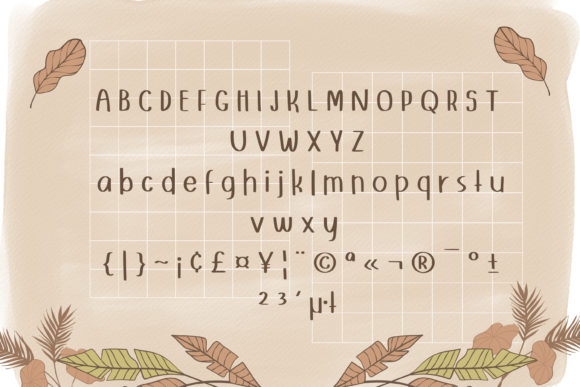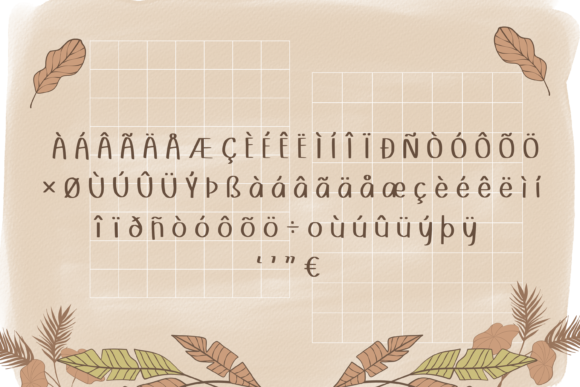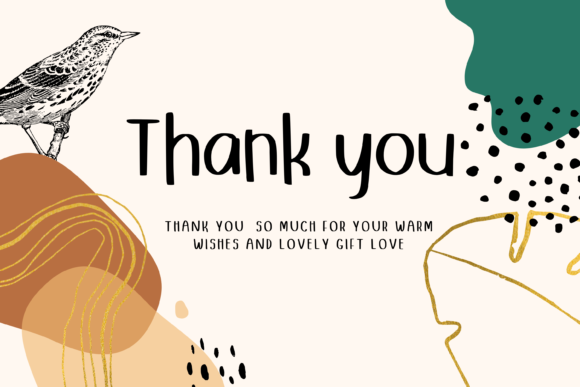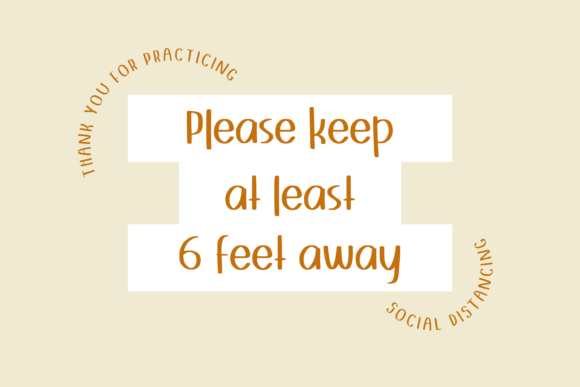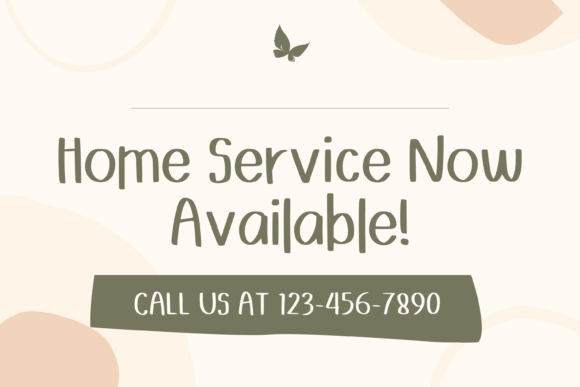
The Chalkboard Charm: Unlocking the Potential of Carloman Font
Remember the joy of scribbling notes on a chalkboard during class, the feel of the chalk dust on your fingers, and the satisfaction of creating something from scratch? As designers, we’re often looking for ways to capture that same sense of nostalgia and authenticity in our work. That’s where the Carloman Font comes in – a cute and simple lettered handwritten font that’s perfect for adding a personal touch to your designs.
Whether you’re creating chalkboard quotes, teaching materials, or simply looking to add some charm to your graphics, Carloman Font is a valuable tool in your design arsenal. Its authentic look will transport your audience back to a simpler time, making it a must-have for anyone looking to create a unique and engaging visual experience.
Carloman Font Key Features
- Font Family: Carloman Font is a sans-serif font family, ideal for digital and print applications.
- Size: The font family includes multiple weights, ranging from Thin (100) to Extra Bold (800), ensuring versatility in design.
- Resolution: Designed for high-resolution displays, suitable for use on screens with resolutions up to 300 DPI.
- Unique Characteristics: Carloman Font features a clean, modern design with a subtle rounded edge, making it perfect for corporate and tech-related projects.
- Character Set: Supports a wide range of languages, including Latin, Cyrillic, and Greek scripts, making it a great choice for international projects.
Carloman Font Review
Overall, I’m quite impressed with the Carloman Font. It’s a unique and elegant design that stands out from more generic fonts. ✨ Here are some of its strengths:
- Unique flair: The Carloman Font has a distinct flair that sets it apart from other fonts. It’s perfect for designers looking to add a touch of sophistication to their projects.
- Legibility: Despite its ornate design, the font remains highly legible, making it suitable for body text and headings alike.
- Cultural relevance: The font’s inspiration from ancient cultures adds a layer of depth and cultural significance, making it an excellent choice for projects that require a sense of history and tradition.
- Limited flexibility: While the font is beautiful, it may not be the best choice for projects that require a wide range of font sizes or styles.
- Dependence on context: The font’s unique design may not be as effective in certain contexts, such as on low-resolution screens or in situations where legibility is paramount.
Overall, I’d give the Carloman Font 4 out of 5 stars. It’s a stunning design that’s perfect for projects that require a touch of elegance and sophistication. With a little creativity and careful planning, the font’s limitations can be overcome, making it an excellent choice for designers looking to push the boundaries of typography.
Getting the Most Out of Carloman Font
For optimal results, use Carloman Font in conjunction with bold or italic text styles to add emphasis and create visual hierarchy.
Experiment with different font sizes and line spacing to achieve a balanced and harmonious design.
Alternatives to Carloman Font
Montserrat is a geometric sans-serif font designed by Julieta Ulanovsky. It is perfect for modern designs, logos, and titles. Montserrat is more geometric and clean compared to Carloman Font, making it ideal for digital products and websites.
Comparison to Carloman Font: Montserrat is more modern and geometric, while Carloman Font has a more classic feel. Montserrat is also more versatile and can be used in a wide range of designs, whereas Carloman Font is more suited for traditional and vintage designs.
Open Sans is a clean and modern sans-serif font designed by Steve Matteson. It is perfect for body text and is highly legible, making it ideal for long blocks of text. Open Sans is more readable and user-friendly compared to Carloman Font, making it ideal for digital products and websites.